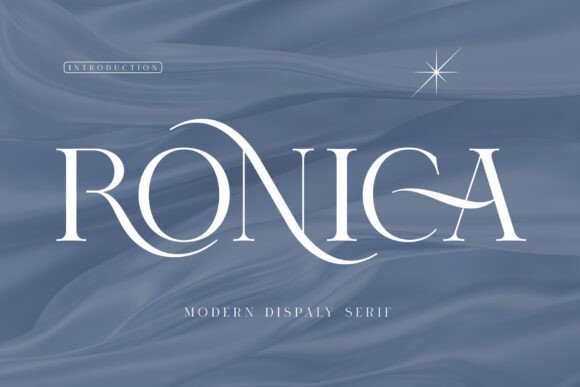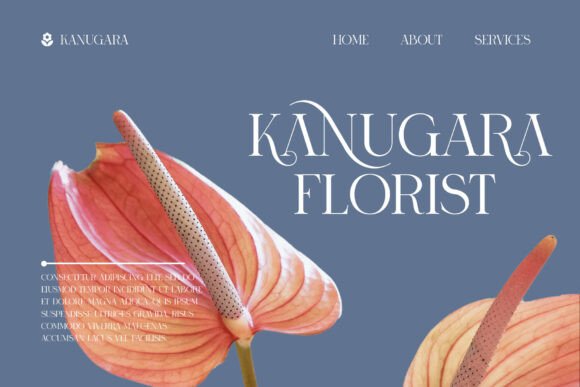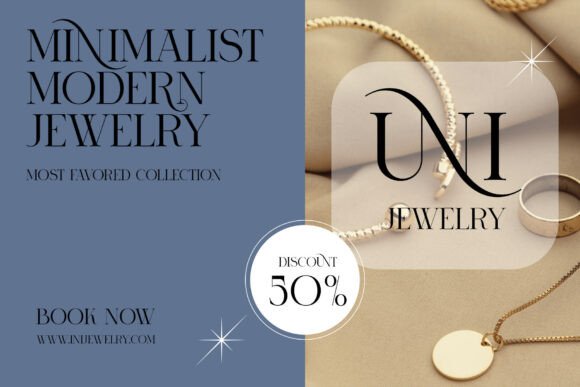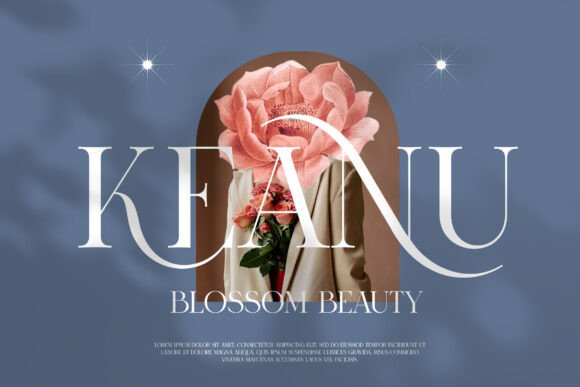
Ronica Font: Elegant Ligature Serif for Upscale Branding & Logo Design
About the Ronica Font
Explore the possibilities with Ronica Font, a font that offers both beauty and functionality. **RONICA** an elegant ligature serif modern font that evokes the beauty of fresh blooms and timeless elegance. With its bold yet refined ligatures, RONICA stands out as a sophisticated and feminine typeface. Perfect for upscale designs, whether for florals, fashion, or high-end branding, RONICA pairs the charm of classic serif styles with a modern twist. Every letter feels intentional, with a soft and graceful presence that elevates any project it touches.
Bring a touch of refinement and natural grace to your work with RONICA. Let this font breathe elegance into your designs, and watch them flourish with style and character.
Ronica Font Usage Examples
Ronica Font Example